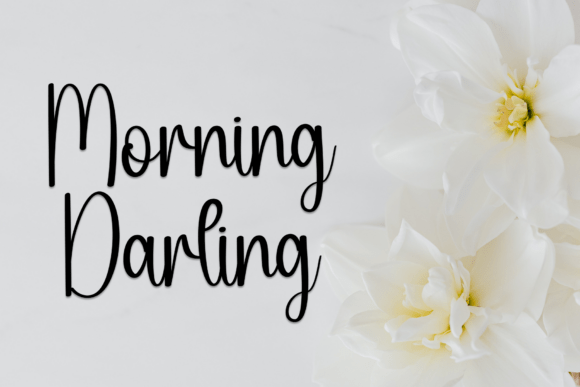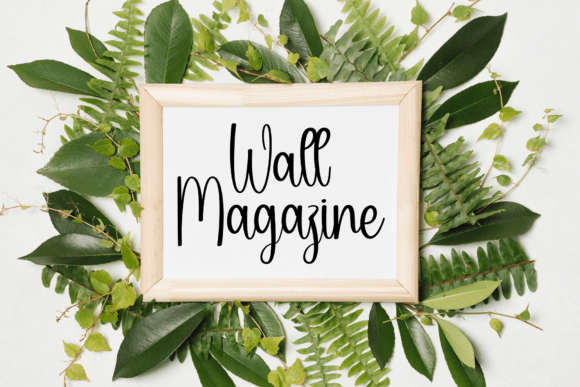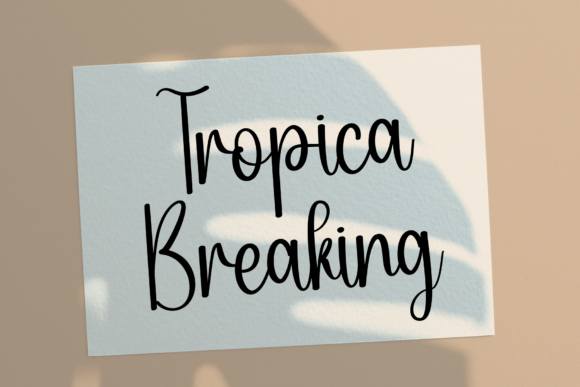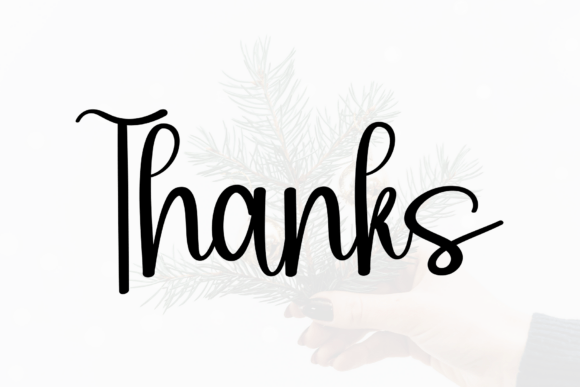
Introducing Bucket Newyear Font: The Perfect Blend of Relaxed and Luxurious
Are you on the hunt for a font that exudes a sense of casual elegance and sophistication? Look no further than Bucket Newyear Font, a stunning handwritten font that is sure to elevate your designs to the next level. With its unique marker-drawn aesthetic, Bucket Newyear is the perfect choice for designers and crafters looking to add a touch of relaxed luxury to their work.
What is Bucket Newyear Font?
Bucket Newyear Font is a beautiful handwritten font that is designed to resemble writing with a marker. Its casual, sporty feel makes it an excellent choice for a wide range of design applications, from branding and logos to wedding supplies, greeting cards, and marketing promotions. Whether you’re looking to create a luxurious and elegant design or a more laid-back and casual one, Bucket Newyear Font is the perfect tool for the job.
Key Features of Bucket Newyear Font
- Handwritten with a marker feel: Bucket Newyear Font has a unique, hand-drawn aesthetic that gives it a personal and relaxed feel.
- Relaxed and sporty vibe: This font is perfect for designs that need to convey a sense of casual elegance and sophistication.
- Versatile: Bucket Newyear Font can be used for a wide range of design applications, including branding, logos, wedding supplies, greeting cards, fashion, lookbooks, and marketing promotions.
- Luxurious and elegant: Despite its casual feel, Bucket Newyear Font has a luxurious and elegant quality that makes it perfect for high-end designs.
Use Cases for Bucket Newyear Font
Bucket Newyear Font is an incredibly versatile font that can be used for a wide range of design applications. Here are just a few ideas to get you started:
- Branding and logos: Use Bucket Newyear Font to create a unique and memorable brand identity that stands out from the crowd.
- Wedding supplies: Add a touch of elegance and sophistication to your wedding designs, including invitations, programs, and decorations.
- Greeting cards: Use Bucket Newyear Font to create beautiful and heartfelt greeting cards for any occasion.
- Fashion and lookbooks: Add a touch of luxury and glamour to your fashion designs and lookbooks with Bucket Newyear Font.
- Marketing promotions: Use Bucket Newyear Font to create eye-catching and effective marketing materials, including flyers, brochures, and posters.
Why Choose Bucket Newyear Font?
With so many fonts to choose from, why should you choose Bucket Newyear Font? Here are just a few reasons:
- Unique and distinctive: Bucket Newyear Font has a unique and distinctive aesthetic that will set your designs apart from the crowd.
- Easy to read: Despite its casual feel, Bucket Newyear Font is incredibly easy to read, making it perfect for body text and headlines.
- High-quality: Bucket Newyear Font is a high-quality font that is designed to deliver exceptional results in any design application.